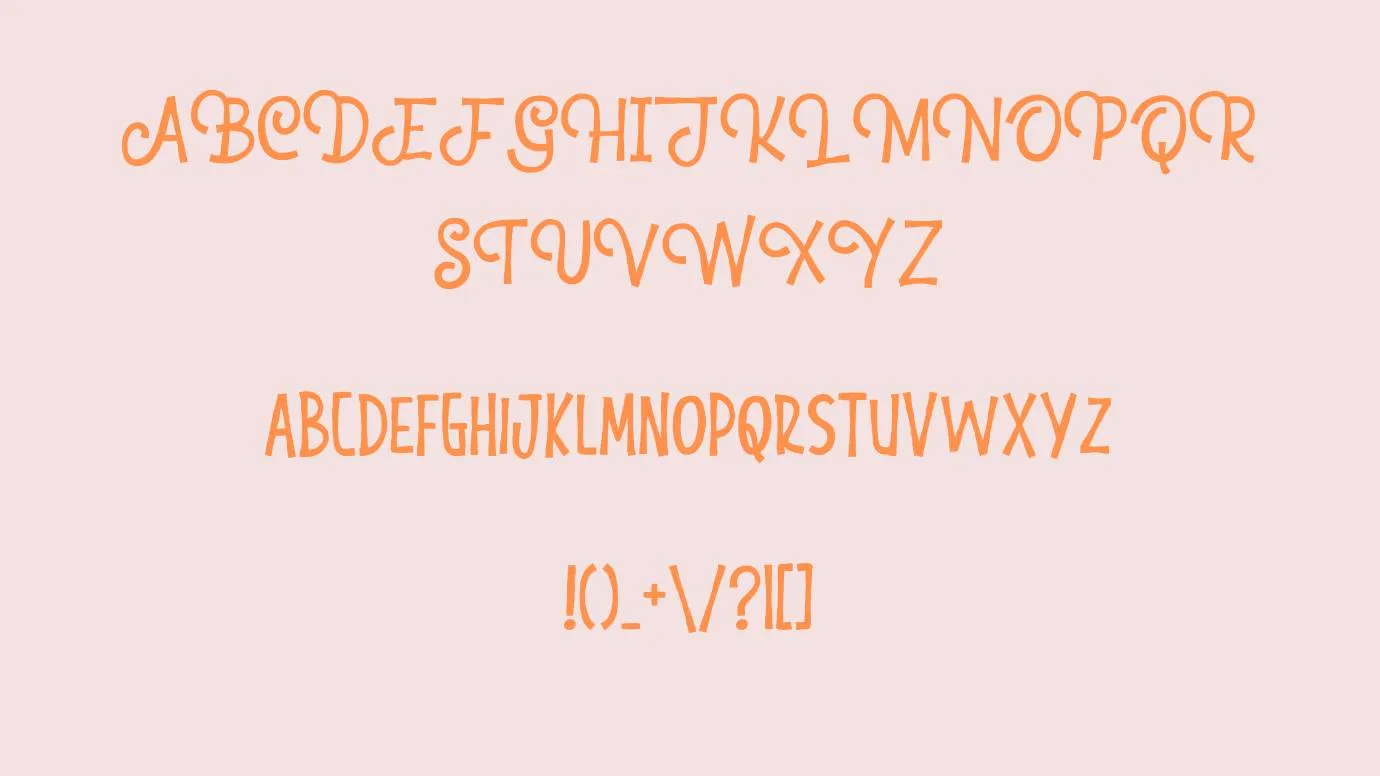
Yowes Font is a very attractive and playful fancy typeface. This amazing typeface was designed by Toni Dzulham and manufactured by Dumadi Style in 2021.
You can also use this font for pairing with other fonts such as archipelago font to give a more attractive look to your projects. It supports multiple international languages and want to use this font again and again in your projects once you use it.
Yowes Font